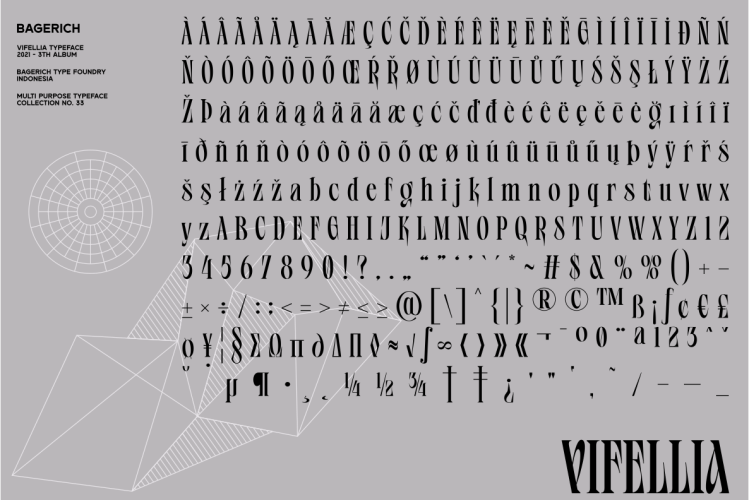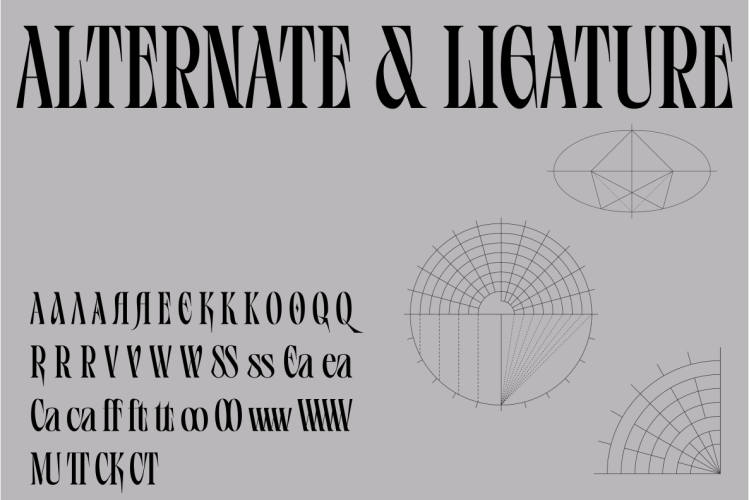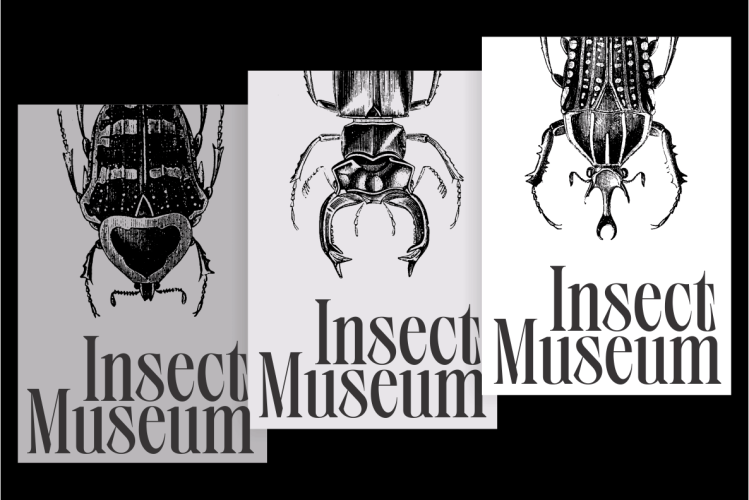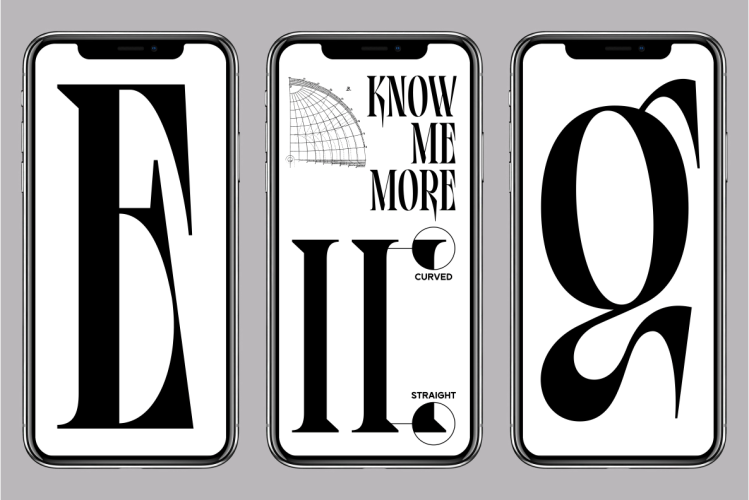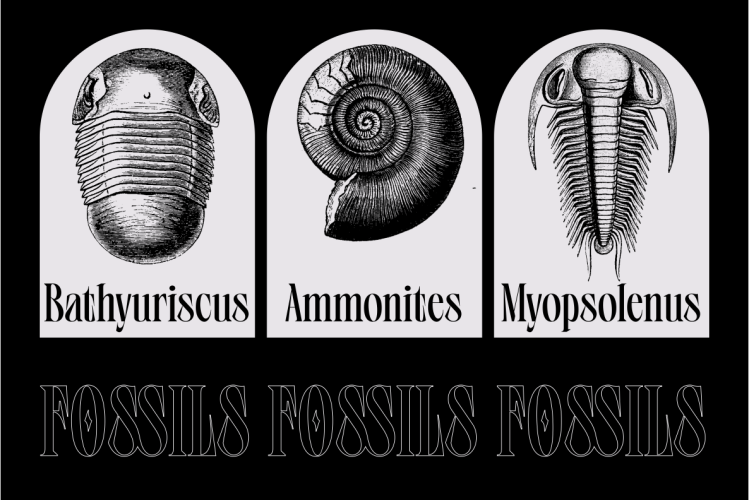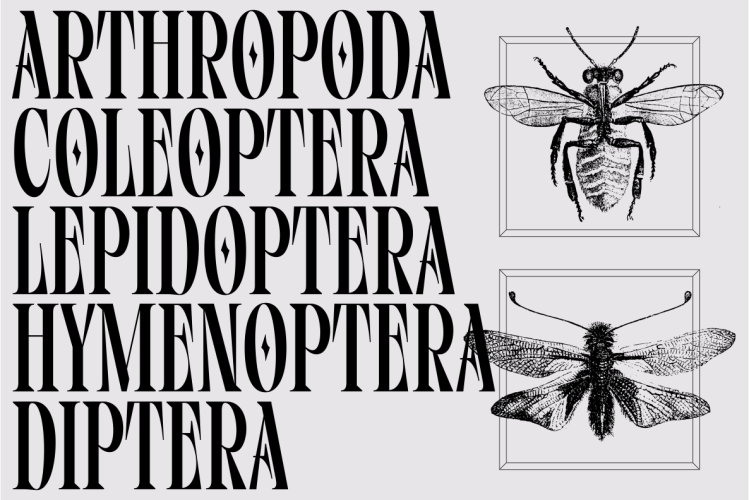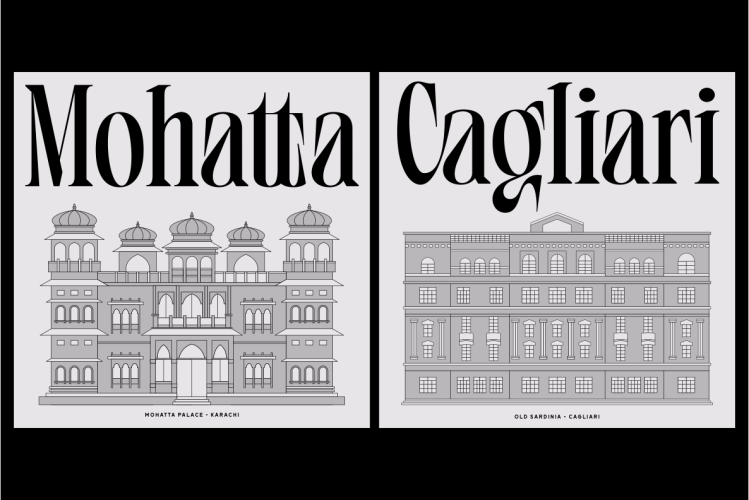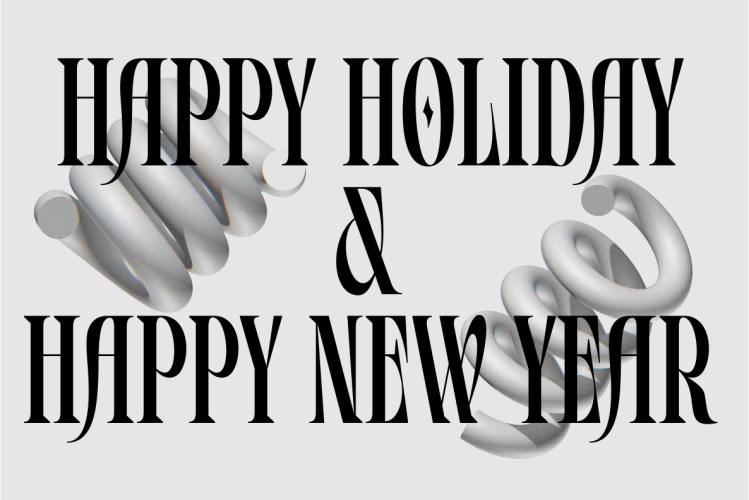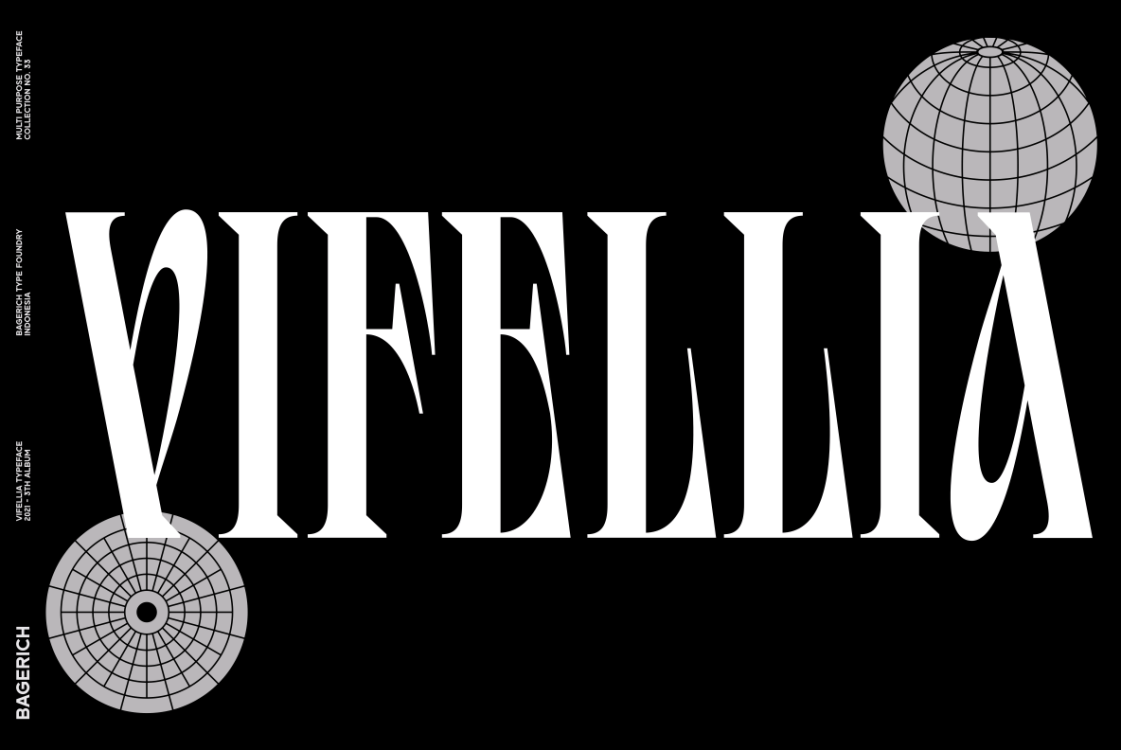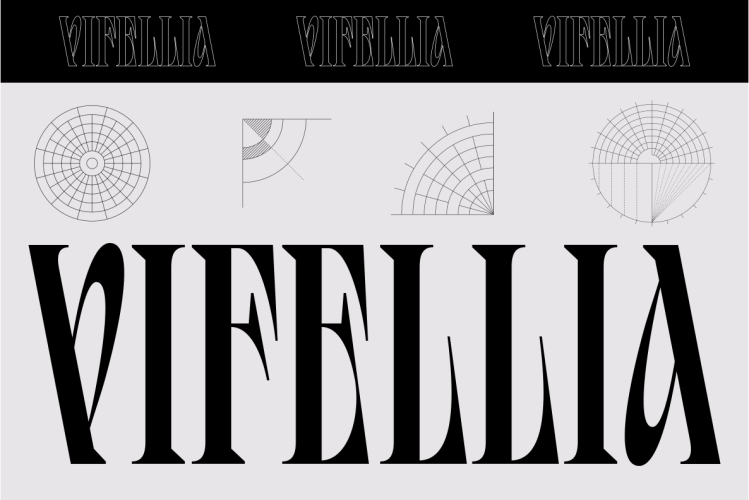
Vifellia Font
Vifellia is a versatile and unique serif typeface, a result of half side curved serif and half side straight serif experiment. Vifellia has a unique style with stylistic…
Vifellia is a versatile and unique serif typeface, a result of half side curved serif and half side straight serif experiment. Vifellia has a unique style with stylistic, alternates, ligatures and supports multilingual languages. Create unique & beautiful logotype, use it as an elegant solution for your next magazine layout, or choose Vifellia for any graphics that require a sleek look with a elegant flair.
Where Vifellia Font works best
Vifellia Font gives long-form text a classic, trustworthy rhythm — ideal for magazine spreads, annual reports and book interiors.
Pair Vifellia Font with generous letter-spacing for wordmarks in fashion, hospitality, wine and jewellery branding.
Use Vifellia Font for slide titles in Keynote, PowerPoint or Google Slides to add authority without looking dated.
What is Vifellia Font good for?